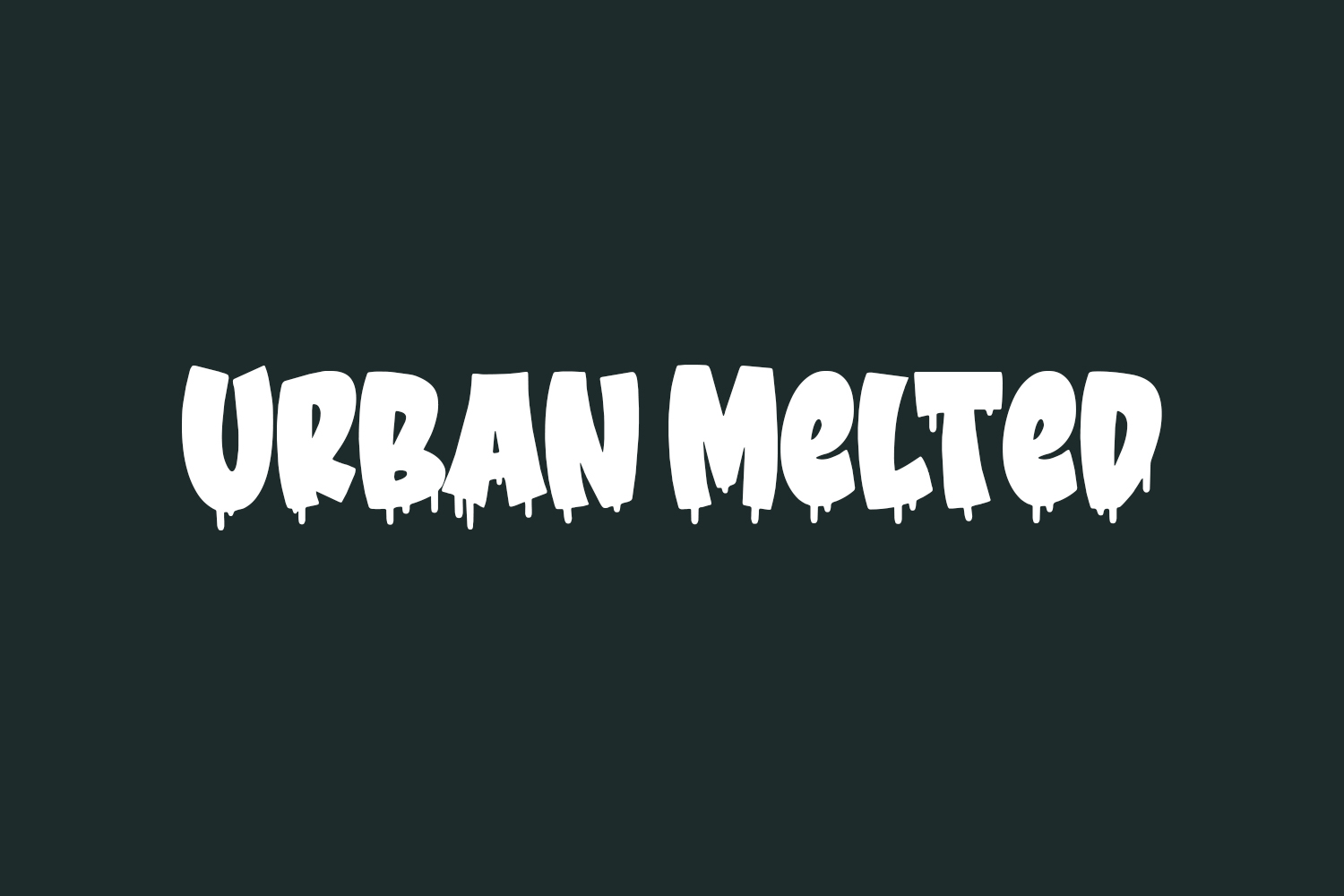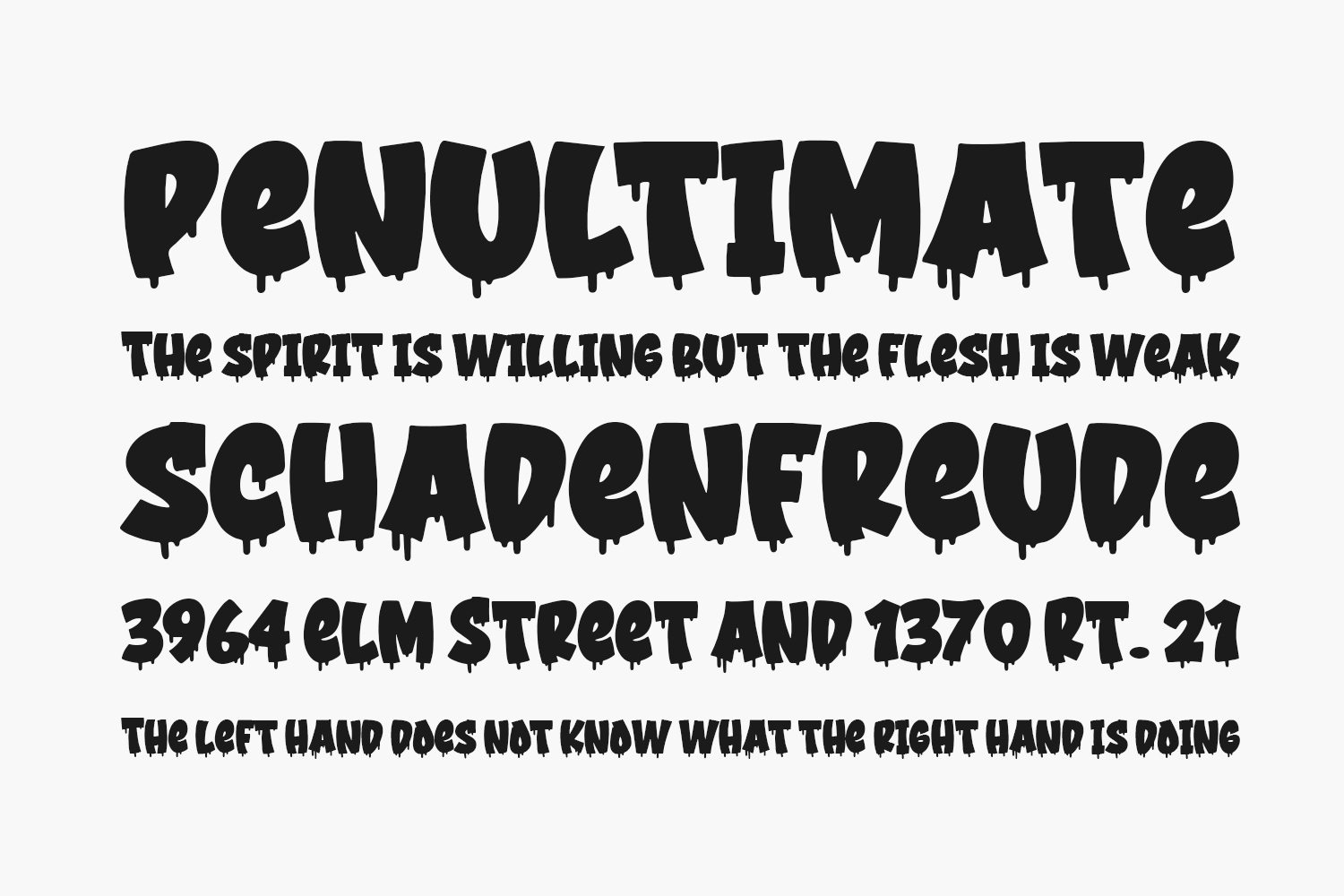
Experience the urban vibe with Urban Melted Free Font Family a vibrant and playful display font inspired by graffiti-style typography. This font is an ideal choice for various design projects, including book covers, children’s books, comics, posters, packaging, merchandise, logotypes, and more. Unleash your creativity, ignite imagination, and infuse endless fun into your designs with Urban Melted. If you’re looking for a font that truly stands out and sparks inspiration, this one’s a perfect fit for you. Urban Melted Free Font Family is free for personal use only. Please purchase the full version for commercial use.